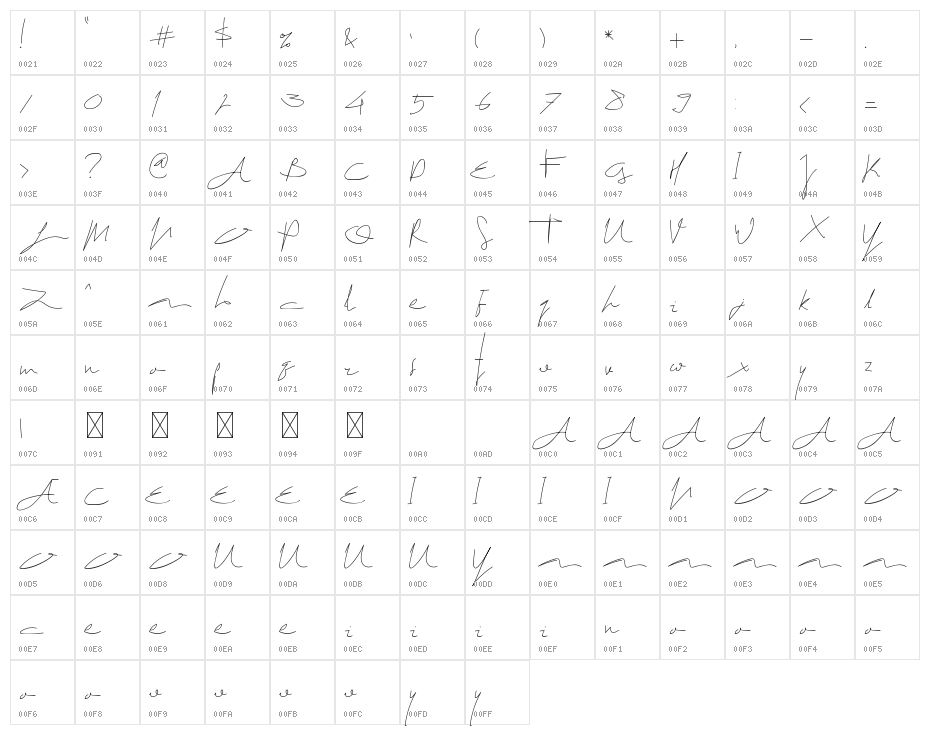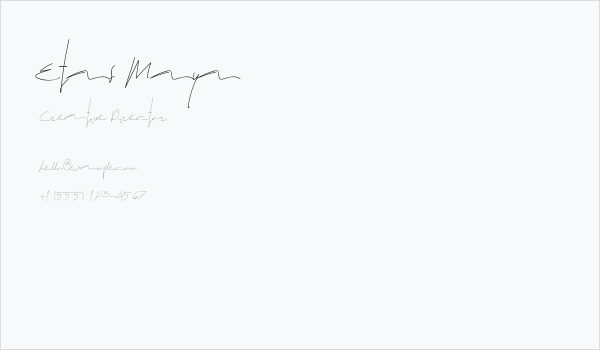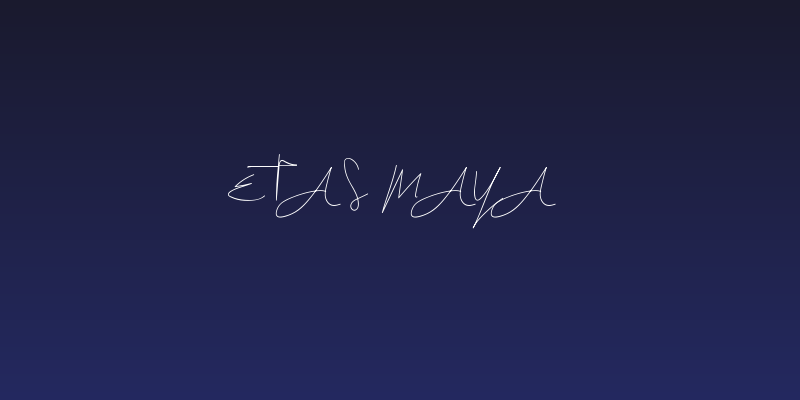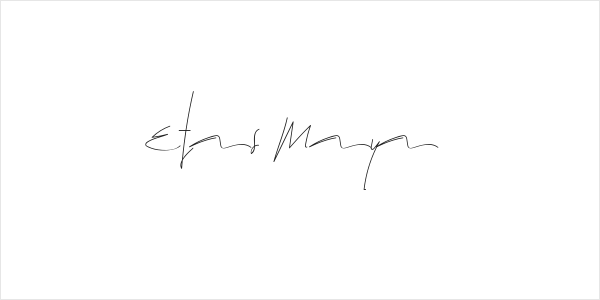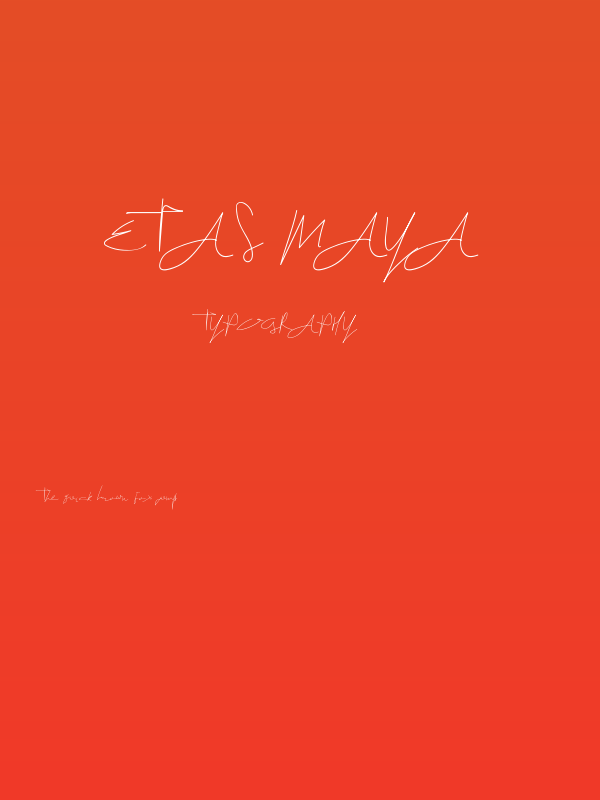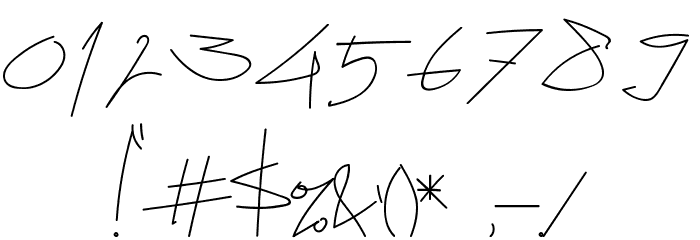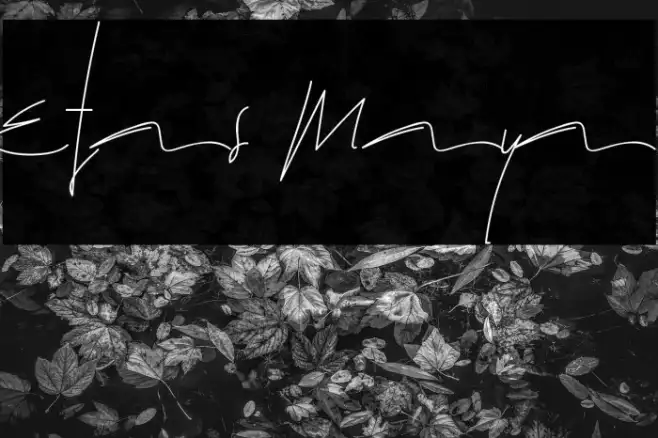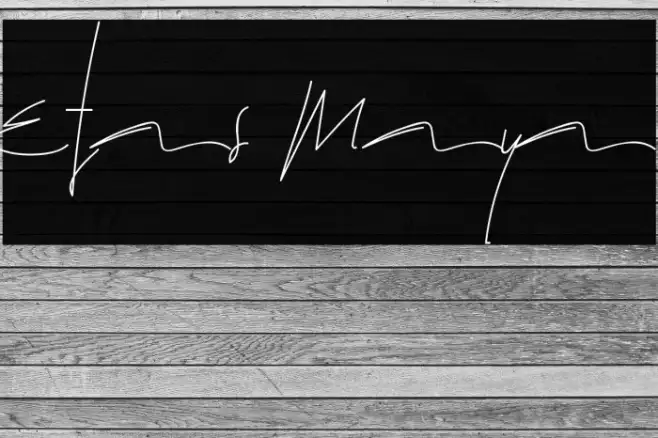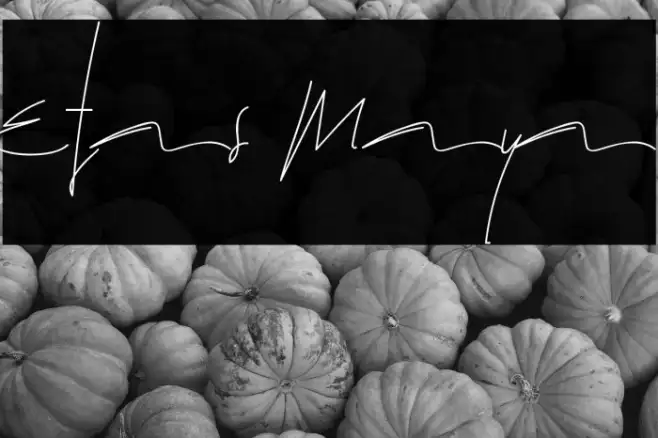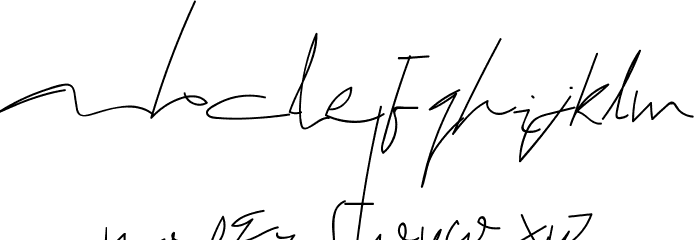
Etas Maya Font
Etas Maya Description
This font exhibits a dynamic and expressive handwritten style, characterized by its fluid and irregular strokes. The letters are connected in a cursive manner, giving it a personal and informal appearance. The uppercase and lowercase letters maintain a consistent flow, while the numbers and special characters complement the overall aesthetic. The strokes vary in thickness, adding a sense of movement and energy to the text. This font is ideal for projects that require a personal touch or a creative flair, such as invitations, greeting cards, or artistic branding.